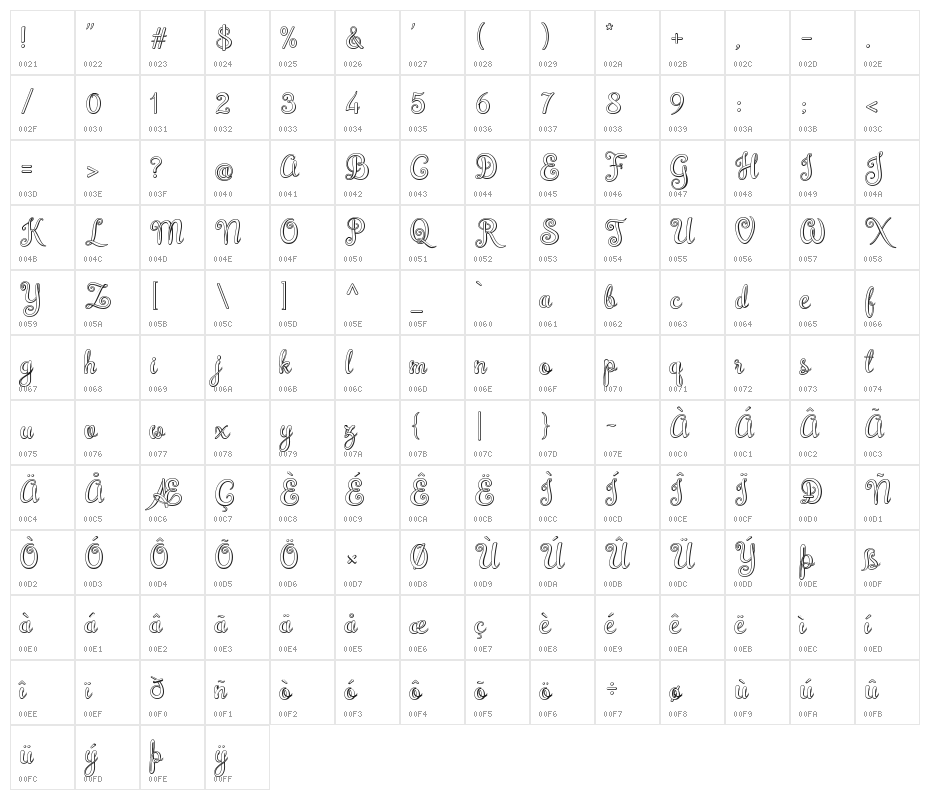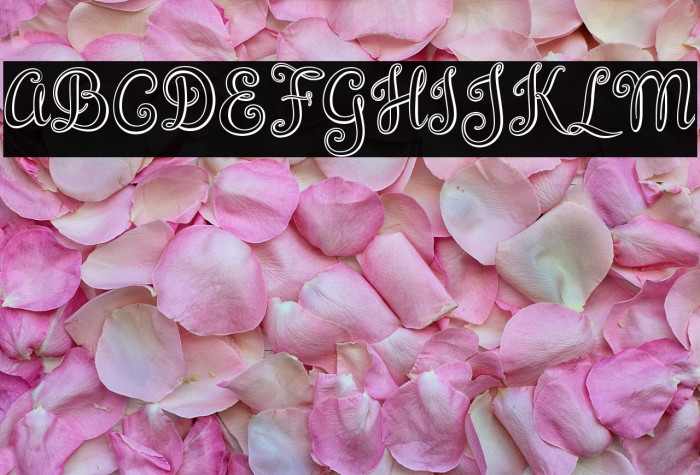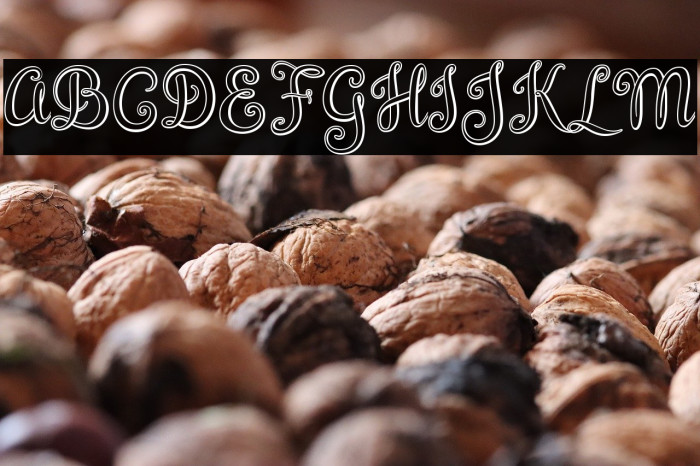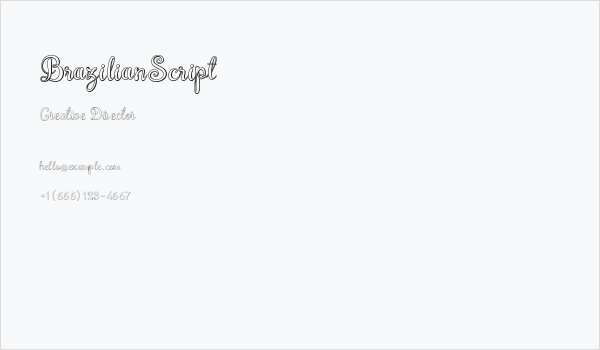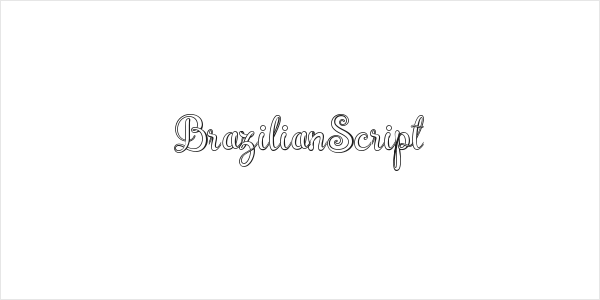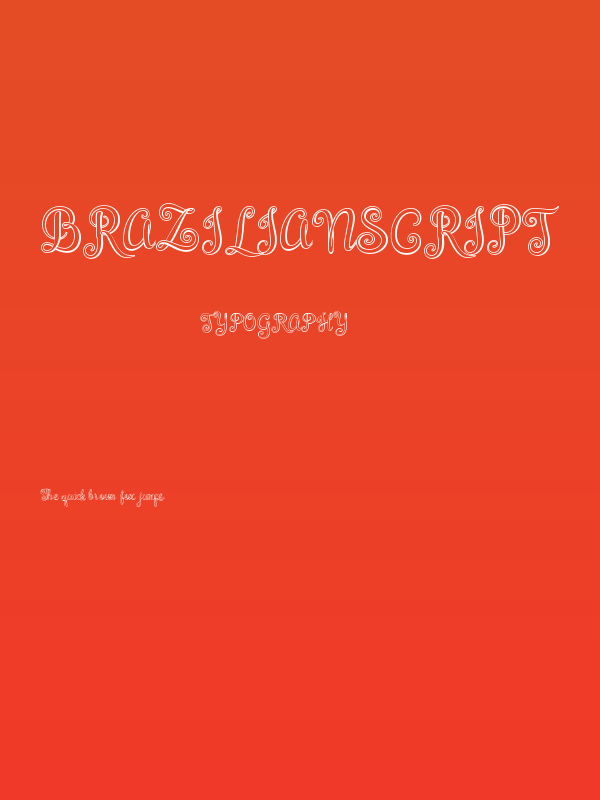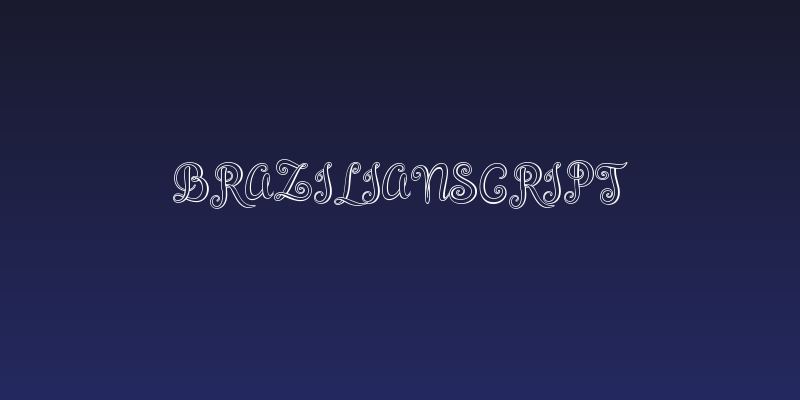
BrazilianScript Font
BrazilianScript Description
This font features an elegant and decorative script style with a playful and artistic flair. The characters are outlined, giving them a unique, hollow appearance that adds depth and dimension. The uppercase letters are ornate, with swirling loops and flourishes that create a sense of movement and sophistication. The lowercase letters maintain the same decorative quality, with smooth, flowing lines that connect seamlessly. Numbers and special characters are designed with the same attention to detail, ensuring consistency across the font. This style is perfect for adding a touch of elegance and creativity to any project.